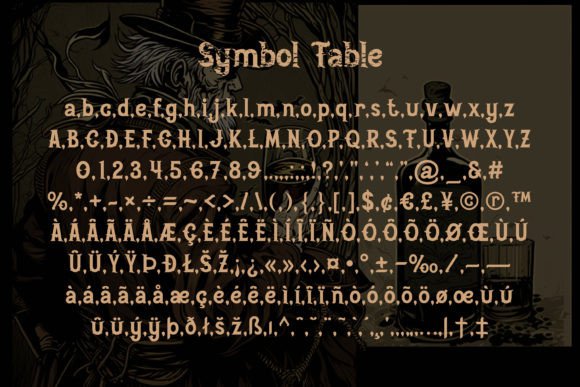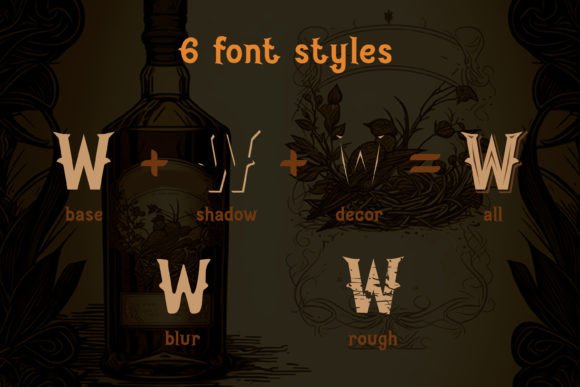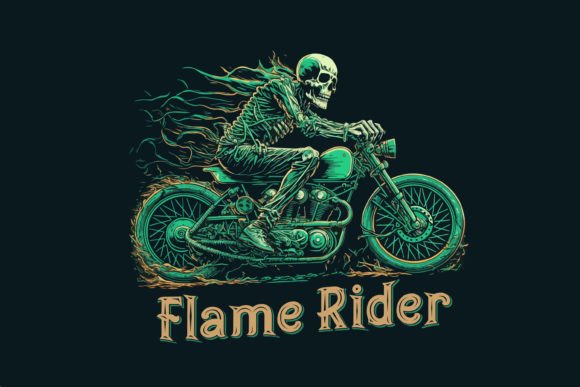
Aged Whiskey Font
The Aged Whiskey font is made in an old vintage style, it is well-suited for labels, headings, logos, and illustrations. Also, as a bonus, a set of various illustrations for T-shirts using this font is included, in eps and png format.